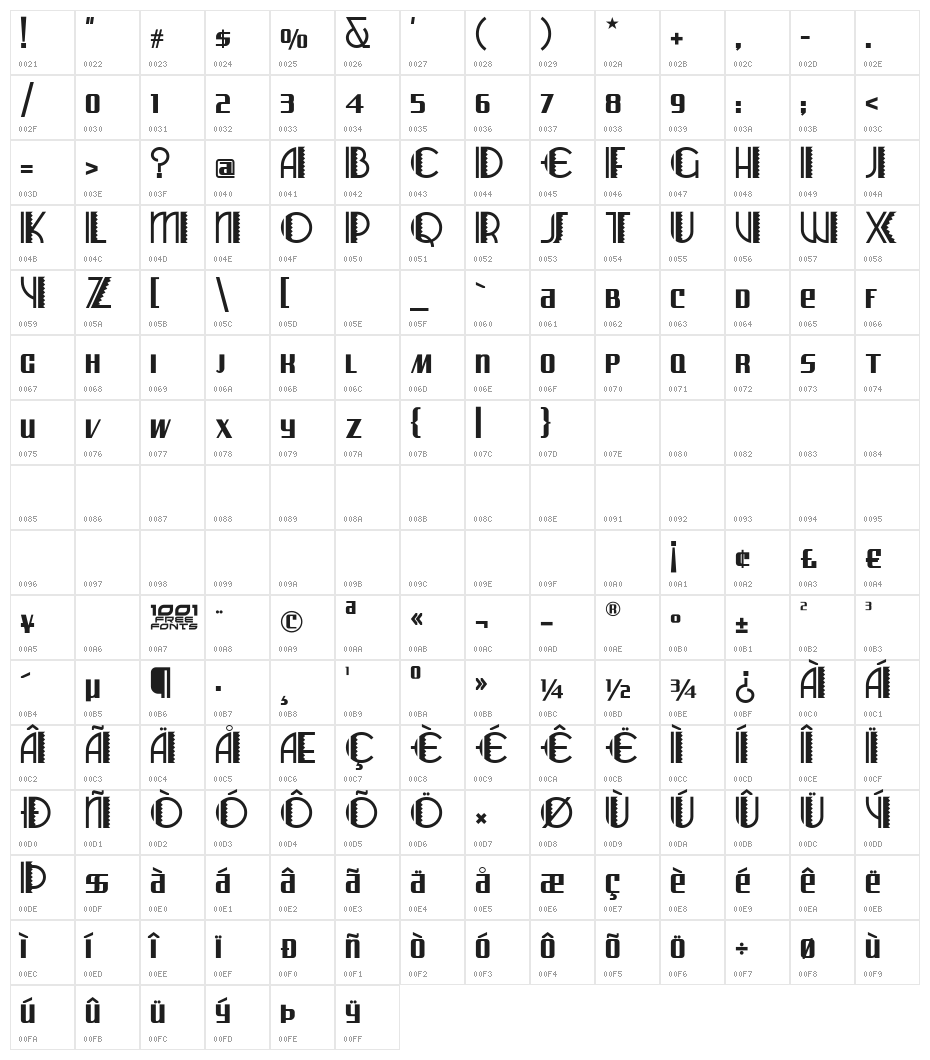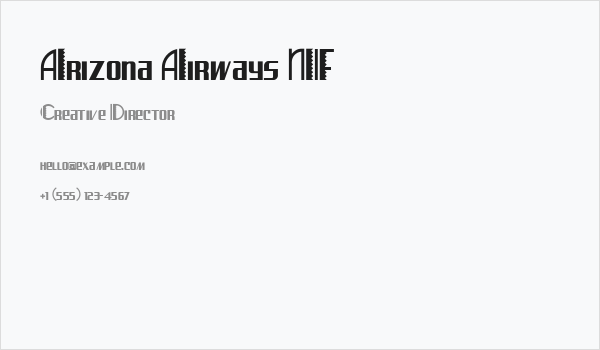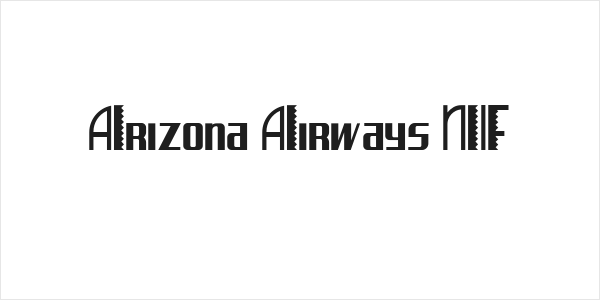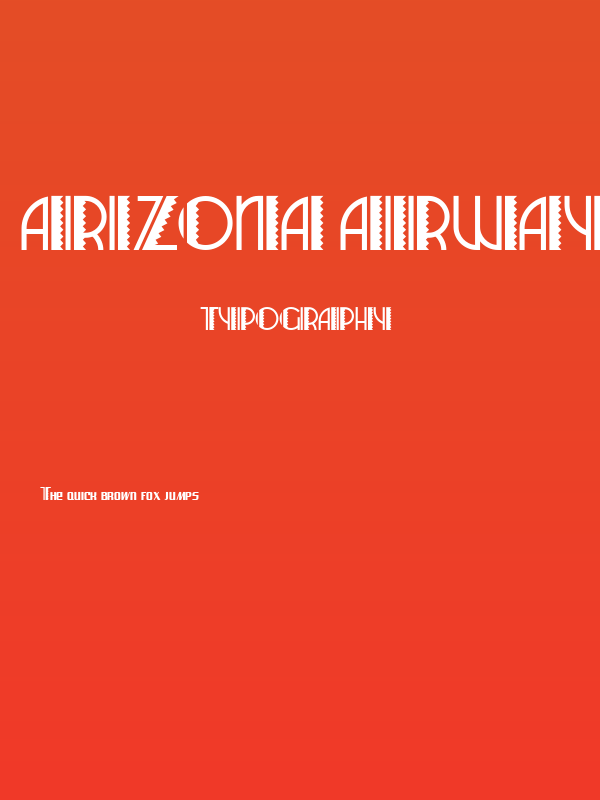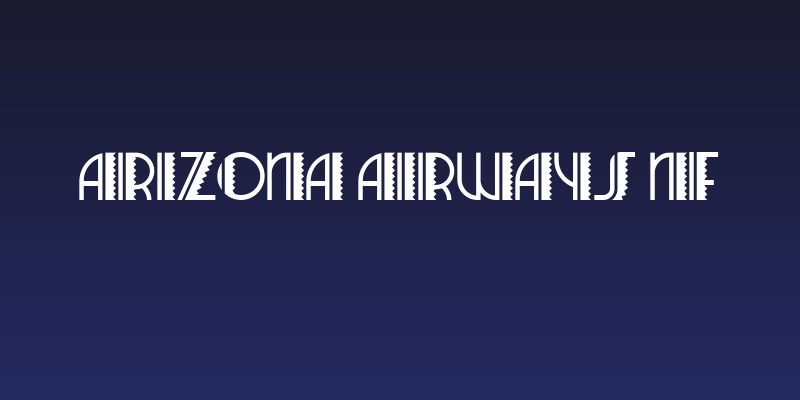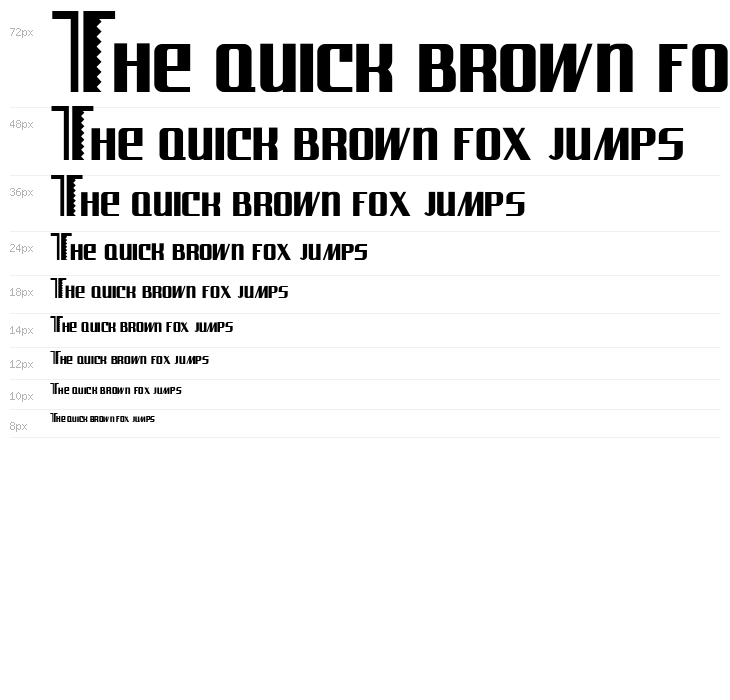
Arizona Airways NF Font
Arizona Airways NF Description
This font features a bold and striking design with a unique decorative flair. The uppercase letters have a distinctive zigzag pattern within the strokes, creating a dynamic and eye-catching appearance. The lowercase letters maintain a bold and solid structure, offering a strong visual impact. The numerals are consistent with the bold style, ensuring readability while maintaining the overall aesthetic. Special characters are designed with the same boldness and decorative elements, making them stand out. This font is perfect for projects that require a strong, attention-grabbing typeface.
Proposed ProjectsIdeal for branding, posters, headlines, and any design needing a bold, decorative touch.